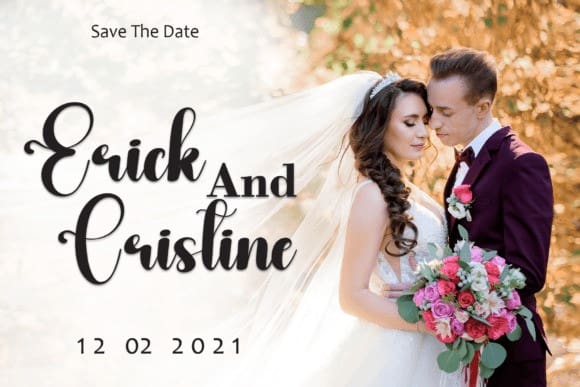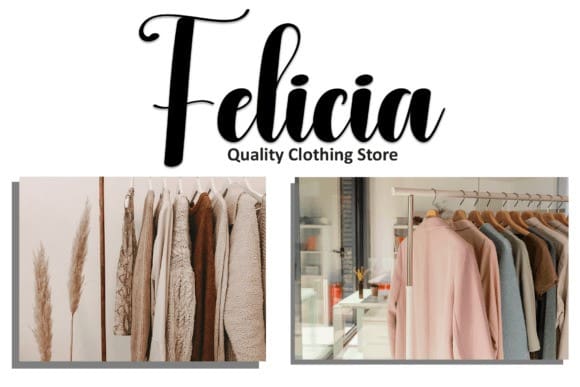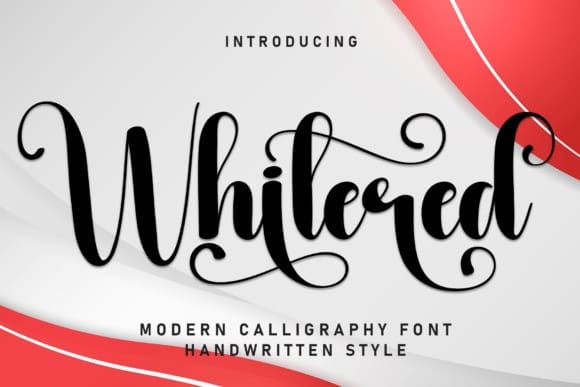
Whitered Script Font
Whitered Script Font is a sweet and friendly handwritten font. Fresh and cute, this font is ideal for writing wedding invitations, cards, or any other design that might need a fun touch!